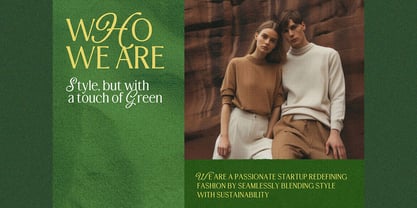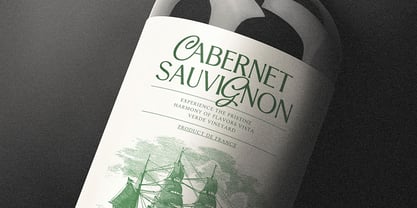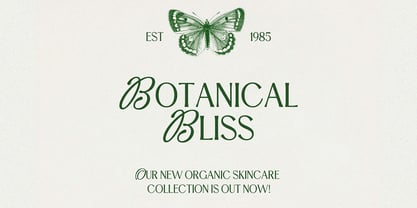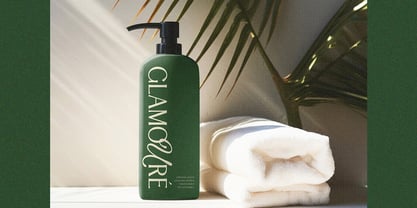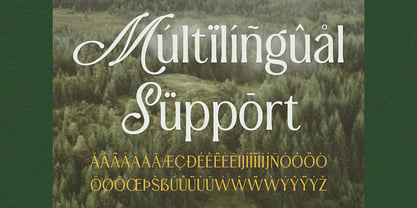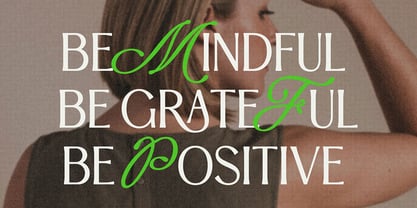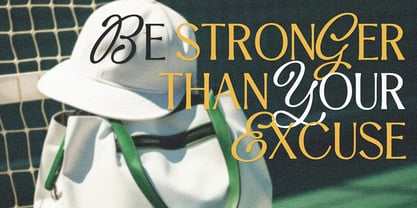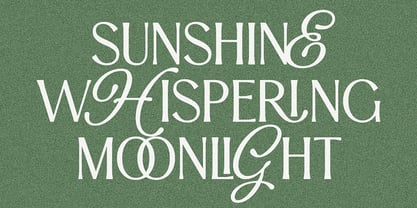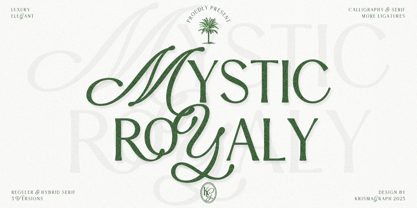
Mystic Royaly
by Krismagraph
The Mystic Royaly Font Family was designed by Ratna Krismawati and published by Krismagraph. Mystic Royaly contains 3 styles and family package options.
Mystic Royaly is a mesmerizing fusion of calligraphy and serif, radiating timeless elegance with a touch of nostalgic charm. Designed to elevate any creative project, this sophisticated typeface comes in three distinct versions: Regular, Hybrid One, and Hybrid Two—each offering its own unique character.
With its refined details and graceful flow, Mystic Royaly adds depth and sophistication to branding, editorial layouts, and social media visuals. Its versatile aesthetic opens the door to endless creative possibilities, making it an essential addition to any designer’s toolkit.
WHAT’S INCLUDED :
- Mystic Royaly Regular
- Mystic Royaly Hybrid One
- Mystic Royaly Hybrid Two
FEATURES :
- Ligatures
- Uppercase and Lowercase letters
- Numbering and Punctuations
- Multilingual Support including Afrikaans, Albanian, Basque, Catalan, Danish, Dutch, English, Estonian, Faroese, Filipino, Finnish, French, Galician, German, Icelandic, Indonesian, Irish, Italian, Malay, Norwegian Bokmål, Portuguese, Spanish, Swahili, Swedish, Zulu.
Designers: Ratna Krismawati